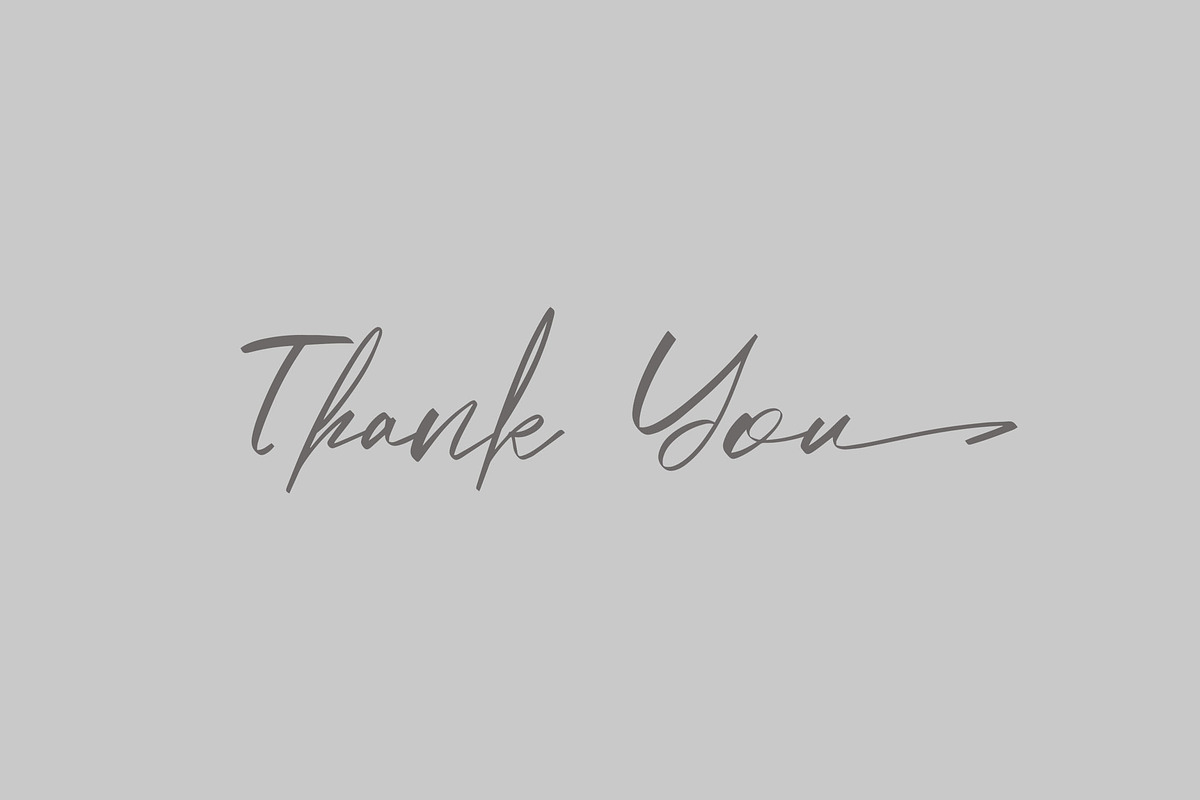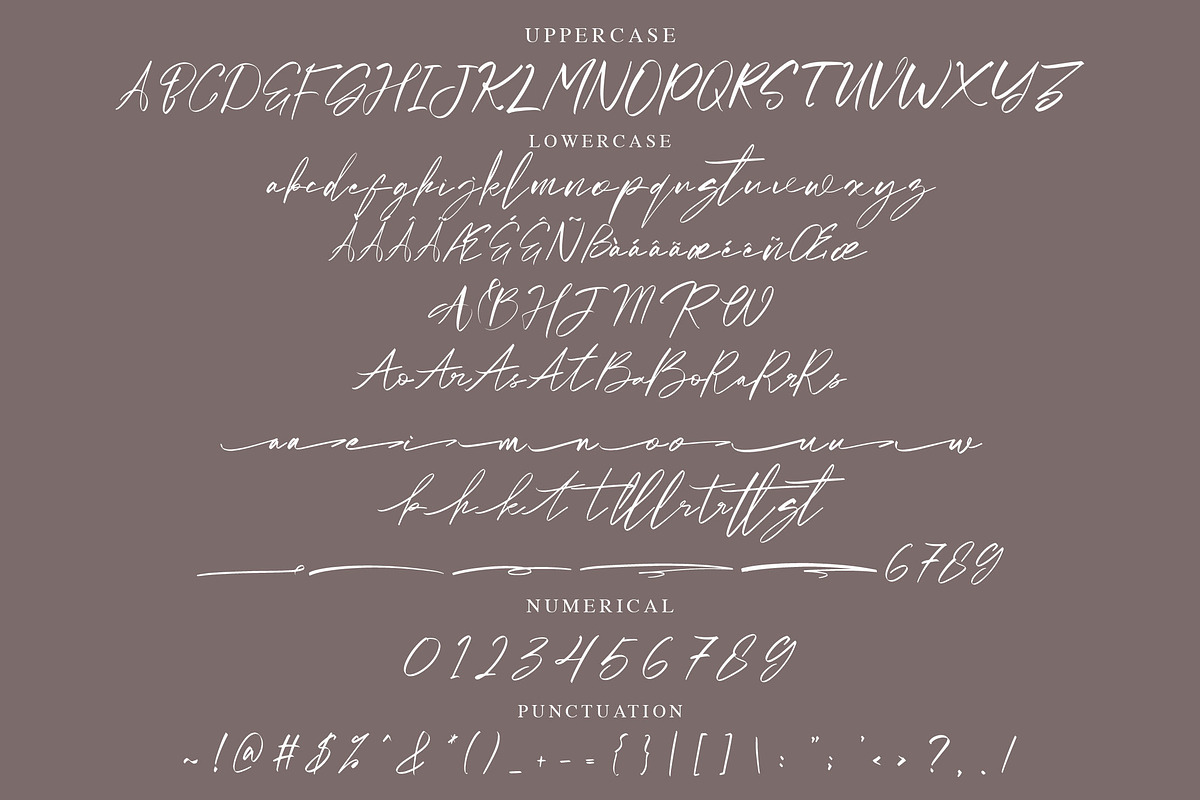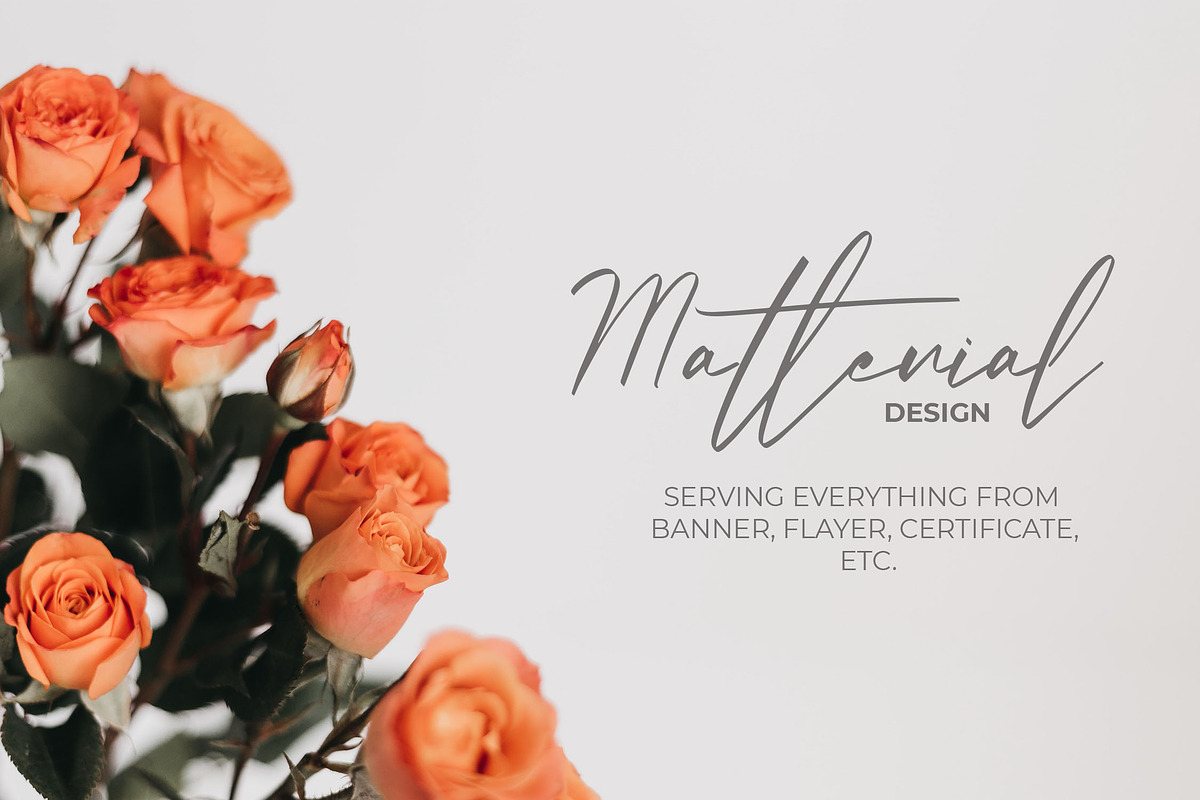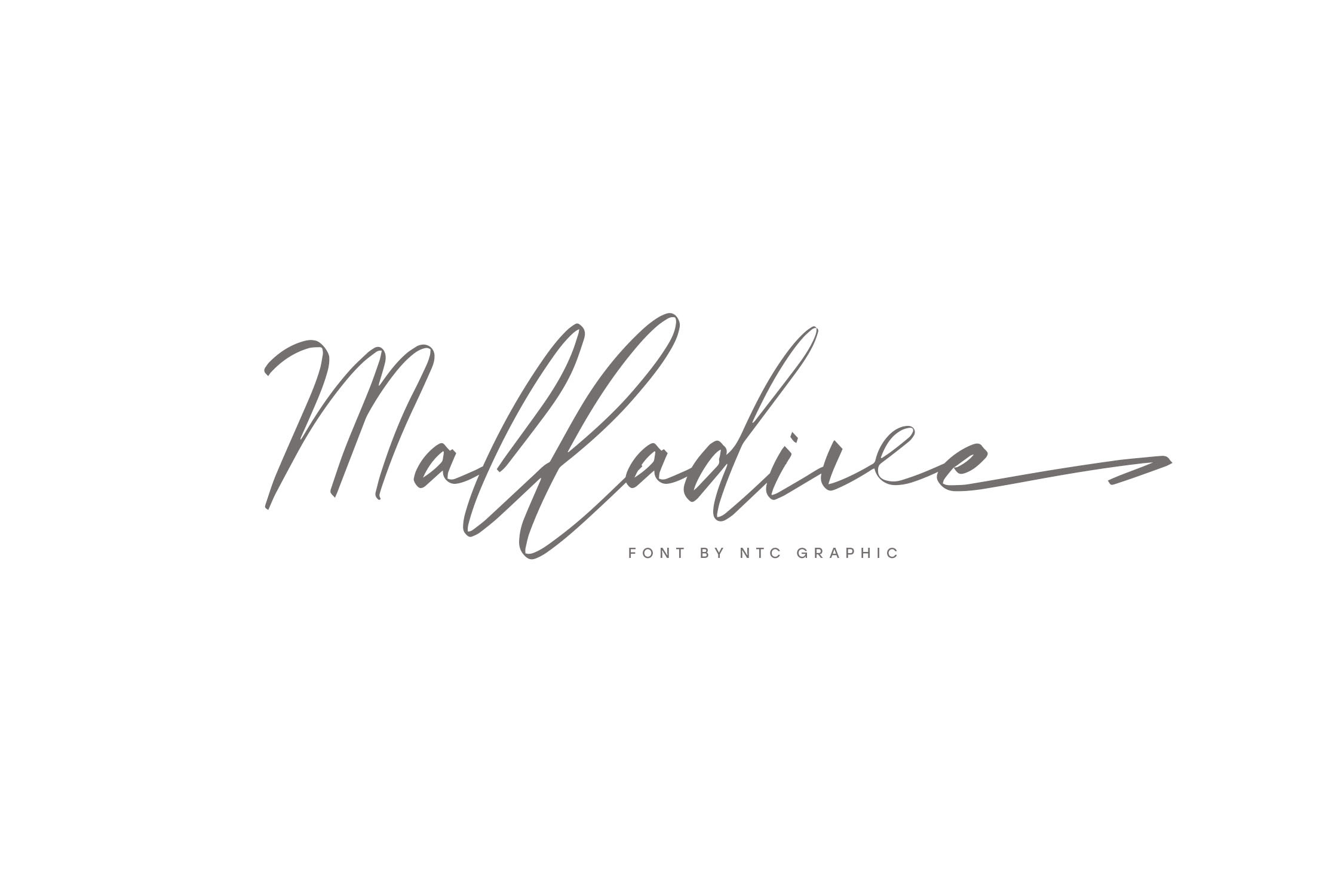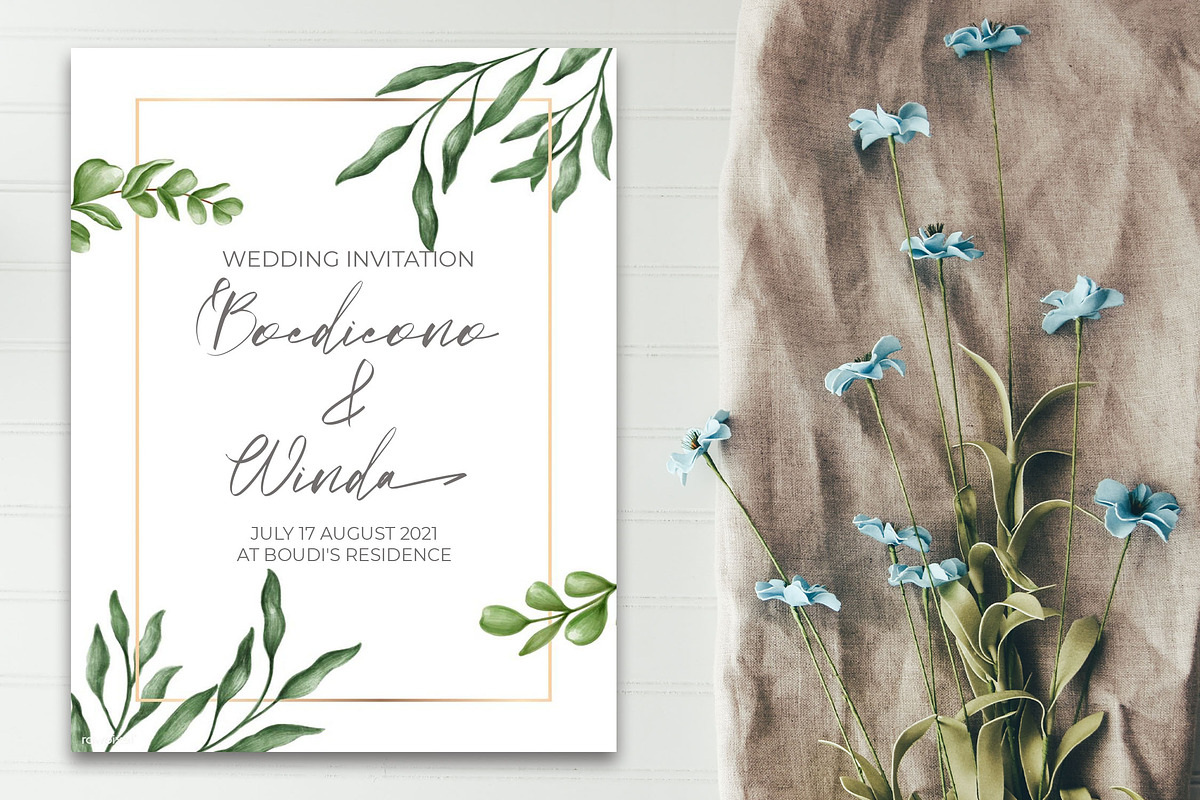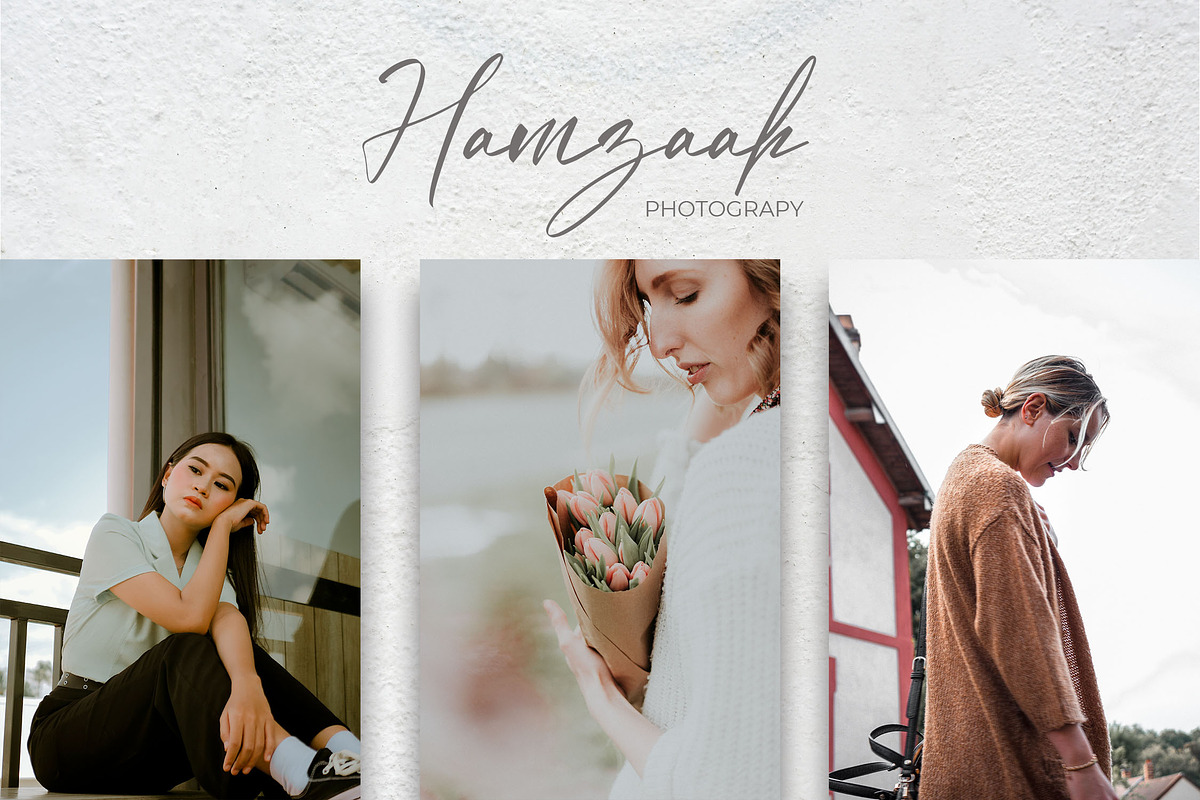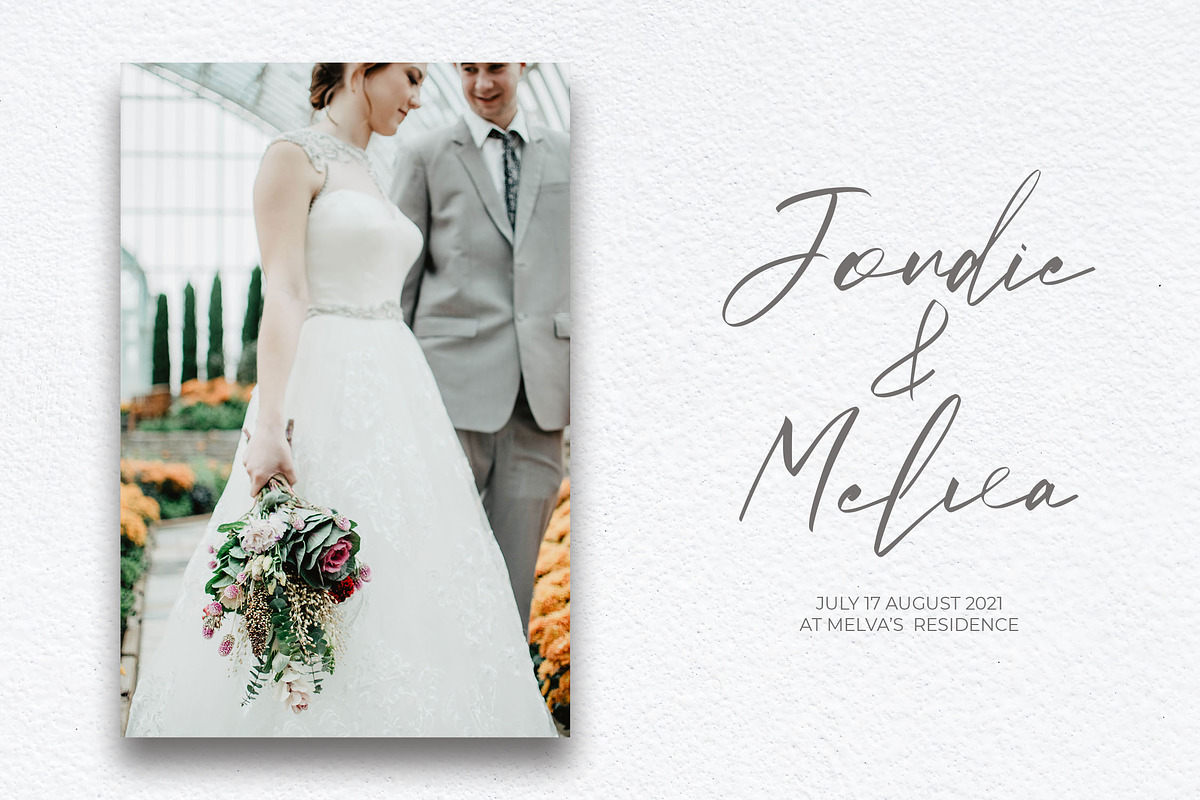
Malladive Handwritten Script Font
Malladive is a script handwritten font with a feminine style. This font style made with unique shapes font characters are really good. Can be applied to support the graphic appearance of the product to be more attractive.
- Stylistic Alternate